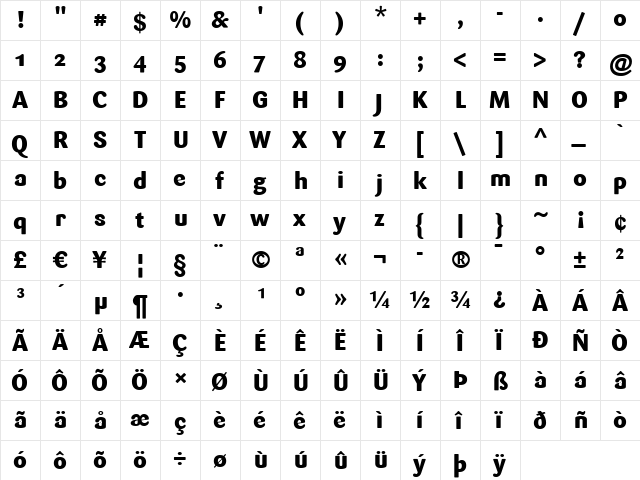
Sari ExtraBold
| Foundry | Hans Reichel, . Published by FontShop International. FontFont Release |
Design Context for Sari Typeface
Sari takes a measured approach to typography — its balanced proportions and neutral character make it a reliable workhorse for both digital and print work. The heavy weight commands attention and anchors typographic hierarchies.